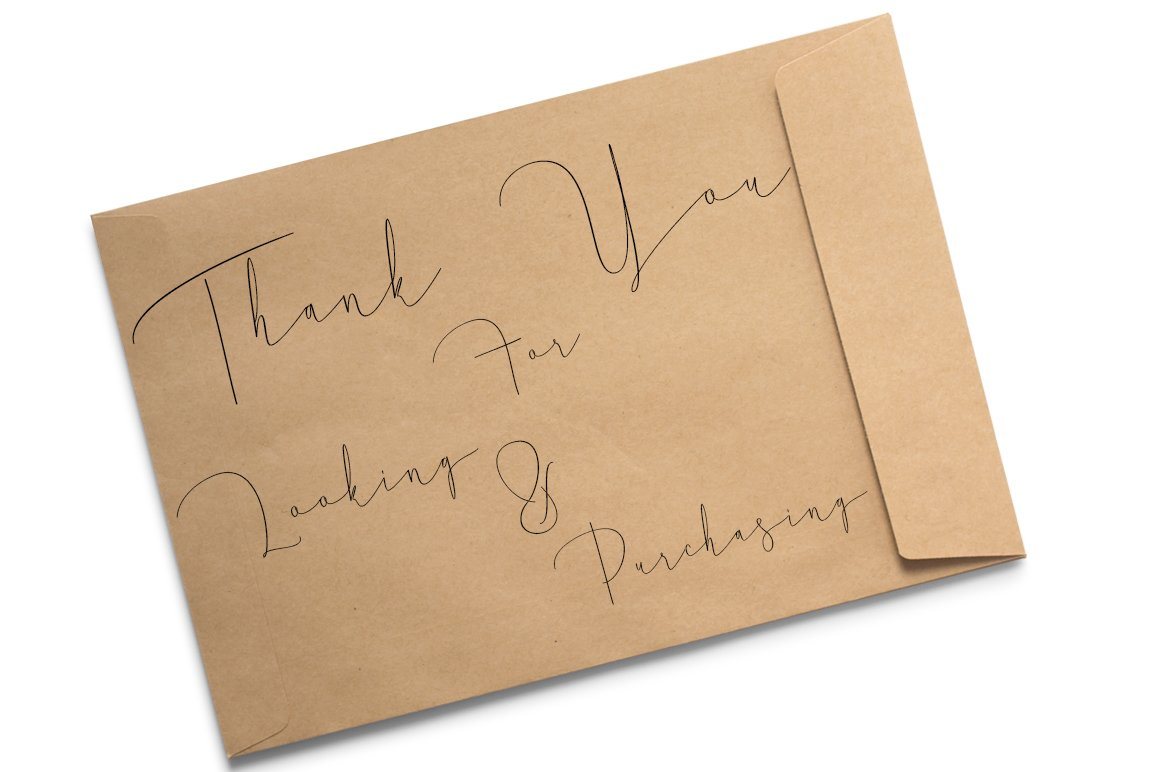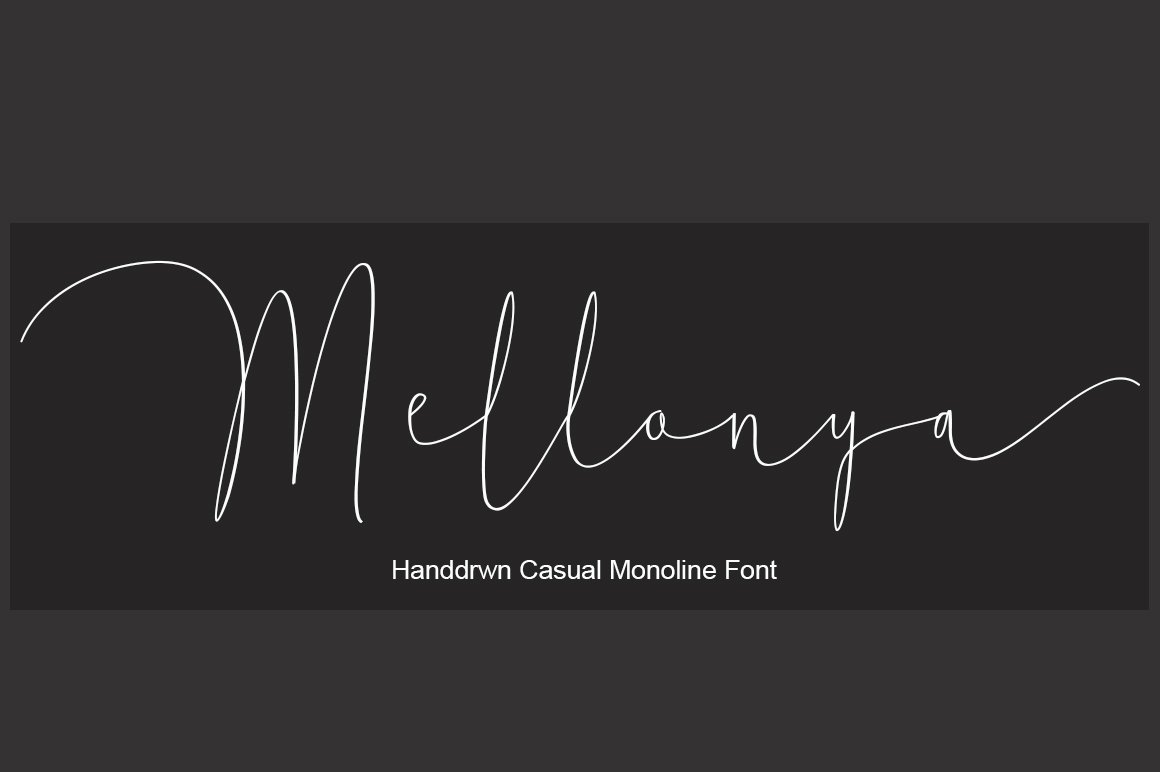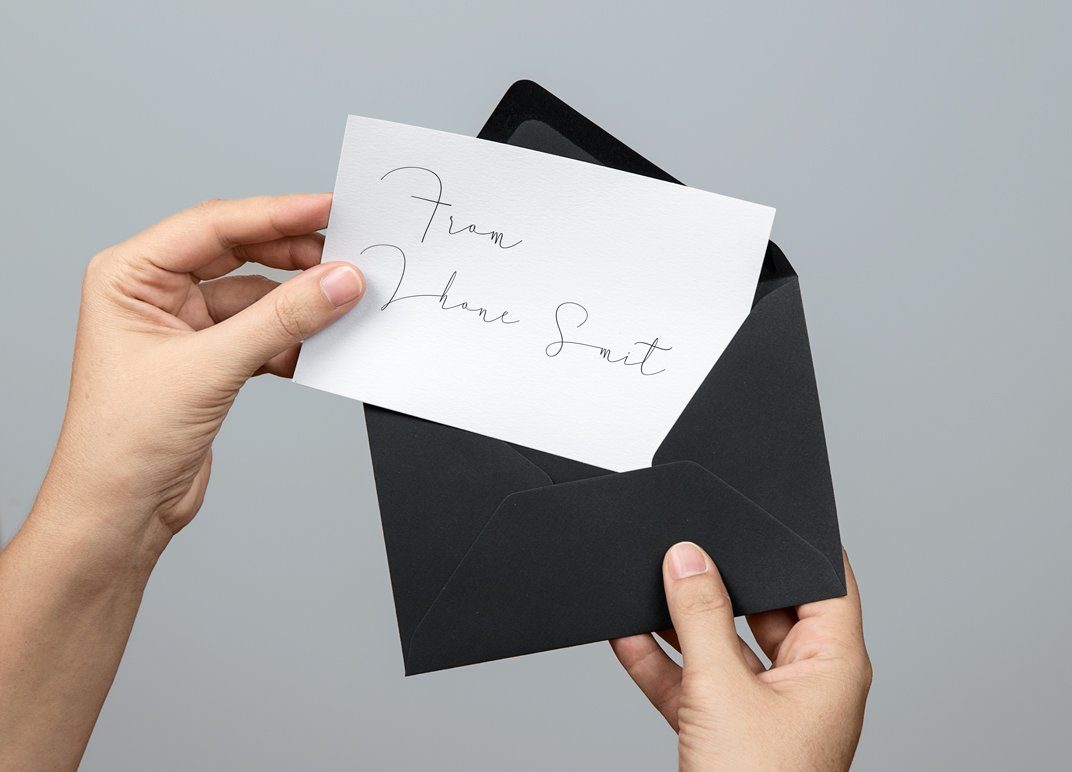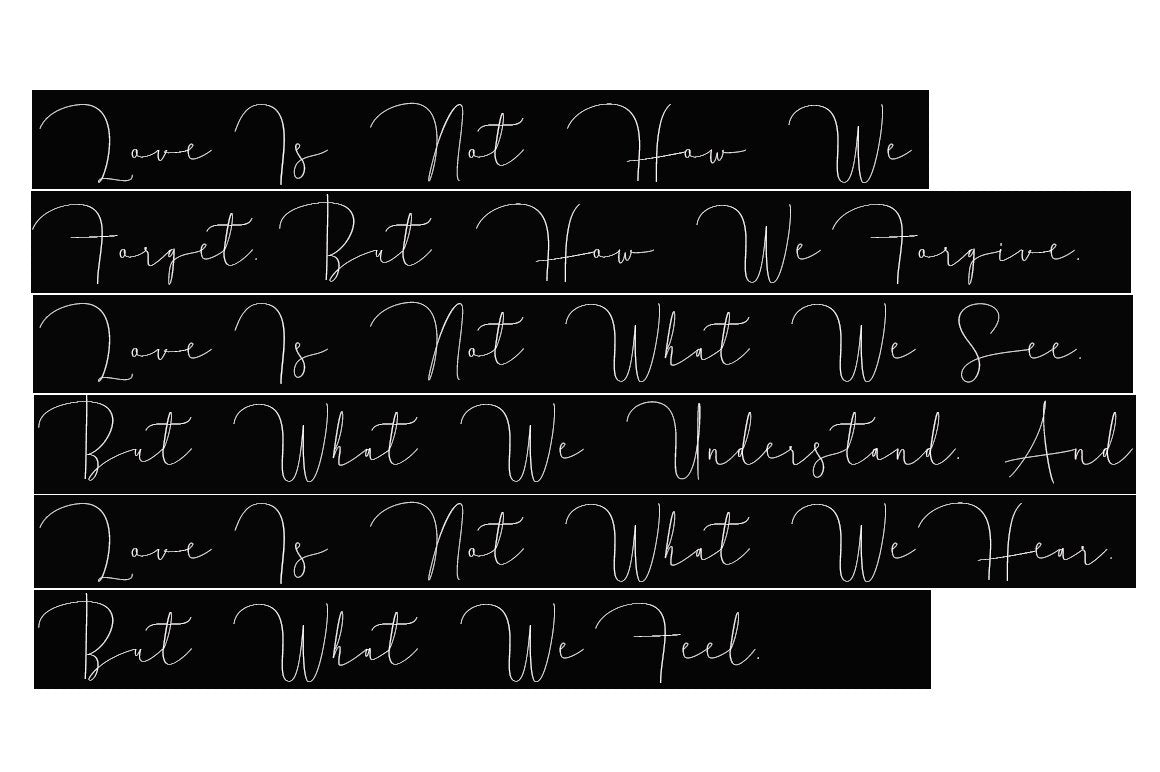
About Mellonya Script
Mellonya Script a soft and beautiful font that has a connection to the upper part of the letter, this is something unique but very beautiful, luxury and charming. This font is to complement your design needs in making amazing works. Mellonya Script Script is perfect for branding, wedding invitations, magazines, mugs, business cards, quotes, posters, and many more that you can use on your big project will be very beautiful. Mellonya Script Script has been equipped with the OpenType feature and has many glyphs. and of course having a lot of flying machines will be able to choose letters to your liking, lots of variations and choices for each letter, so you can adjust your design choices and also have other languages ??supported. which you will get in this package: Mellonya Script. TTF Mellonya Script. OTF Mellonya Script PUA Unicode (Private Use Areas) do not hesitate to buy and have this gorgeous font, as i will soon be updating for the version Programs that support in this font is a Photo Shop, Adobe Illustrator, Adobe Indesign, Corel Draw and Microsoft Office. Can be used for various purposes.such as headings, logos, wedding invitation, t-shirt, letterhead, signage, lable, news, posters, badges etc. To enable the OpenType Stylistic alternates, you need a program that supports OpenType features such as Adobe Illustrator CS, Adobe Indesign & CorelDraw X6-X7. This font is very suitable for use with programs that support OpenType features such as Adobe Photoshop Cs / Adobe Photoshop CC, Adobe Illustrator CS / Adobe Illustrator CC, Adobe Indesign and Corel Draw and many more programs that support OpenType. Can be used for various purposes.such as headings, logos, wedding invitation, t-shirt, letterhead, signage, lable, news, posters, badges etc. if you have any questions, don’t hesitate to contact me via email  Thank you and happy designing Your best. Like, comment and share.